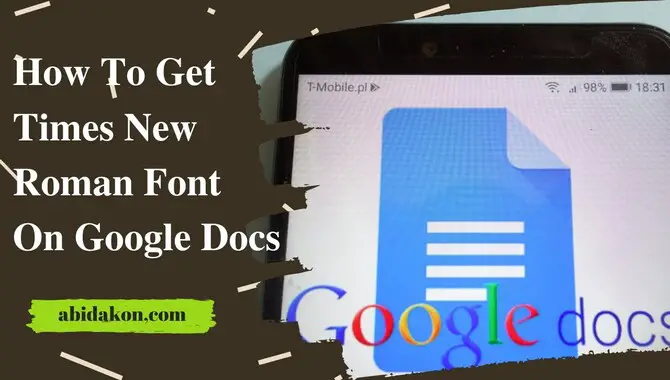
Fonts refer to the typeface used in printed materials, such as books, magazines, and websites. Fonts can come in various styles, including serif, sans-serif, script, and display.
Are you tired of playing it safe with your font choices while creating documents on Google Docs? It’s time to embrace the most significant and boldest fonts available. Here we will explore the most prominent font options in Google Docs, including Arial, Times New Roman, Verdana, Calibri, and Georgia.
We will also discuss how you can change the default font to suit your preferences. Additionally, we have listed the top five biggest font that will make your documents stand out. So, why stick to boring and mundane when you can be bold and beautiful? Let’s dive in.
What Is The Most Biggest Font In Google Docs?
Google Docs’ largest font size is 96pt, perfect for catching attention with headlines or titles. But, using it too much can be overwhelming and hard to read. Experimenting with different fonts recommend to find the right balance for your document.
The biggest font available in Google Docs is 96 points. This font size is approximately 1.33 inches or 3.38 centimeters tall when printed. While this may seem excessively large, it can help create eye-catching titles or headings in documents, presentations, or posters.
However, it’s essential to remember that using a font size that is too large can make your content difficult to read and may appear unprofessional. It’s always best to use larger font sizes sparingly and strategically to ensure your document remains visually appealing and easy to read.
Arial On Google Docs
To ensure readability and aesthetics while using Arial on Google Docs, it’s recommended to use a larger font sparingly and strategically. The largest font available is 96pt, but it’s essential to experiment with different font sizes and styles for the perfect balance.
Clicking “Font size” in the toolbar will help you access the largest font size of Arial on Google Docs. Remember that several different fonts, such as Times New Roman, Calibri, or Georgia, are available, which may also suit your needs.
Times New Roman On Google Docs
Google Docs offers the default serif font Times New Roman that lets you choose from larger font sizes like 96pt using keyboard shortcuts or a toolbar. However, remember that while using big fonts like these sparingly can make your text stand out and emphasize better, it is also essential to balance readability with design.
Verdana On Google Docs
Verdana is among several fonts available on Google Docs that offer a large font size of up to 96pt. It’s essential to remember that using a larger font can impact both readability and aesthetics, so it’s recommended to use this font size sparingly and strategically for emphasis or headings.
To access this larger font size, select the text you want to enlarge and choose the ‘font size’ dropdown menu from the toolbar. Using larger fonts like Verdana can be ideal for various purposes if you balance readability with design.
Calibri On Google Docs
Calibri on Google Docs provides the largest font size of 96 pt. This can be accessed by selecting “96” from the font size box or typing “96pt.” However, it’s crucial to maintain a balance between readability and design, as larger font sizes can make documents challenging to read and appear unprofessional. Using big fonts for emphasis or specific purposes like headings or titles recommend. To improve readability, consider adjusting line spacing or using serif fonts such as Georgia or Times New Roman.
Georgia On Google Docs
You can access the largest font size in Google Docs by selecting the font size dropdown menu at the bottom of the list. While using large fonts sparingly is a good idea, you can emphasize your text with bold or italic formatting. Remember that readability is critical, so try different fonts, spacing, and line spacing to get it right. Playfair Display and Old Standard TT are great serif fonts that work well for larger sizes. You can change the default font and font size box on Google Docs with easy steps.
How To Change The Default Font On Google Docs?
Changing the default font on Google Docs is a simple process that can make a big difference in the appearance of your documents. To do so, you’ll need to open a new or existing document. Then, go to the toolbar and select “Format” followed by “Paragraph styles.” From there, click “Normal text” and select “Update ‘Normal text’ to match.”
This will create a pop-up window where you can choose your desired font, size, and other formatting options. Once you’ve selected it, click “Apply,” and your default font will update for all future documents. Remember that this will only affect new documents; any existing documents must be manually updated if you want them to reflect the new default font.
Top 4 Most Beautiful Fonts In Google Docs
Choosing the right font for your Google Docs document is crucial for creating a professional and polished look. While many different font styles exist, the following five fonts are the most beautiful options in Google Docs. If you’re looking for a classic serif font that adds elegance and sophistication, consider using Playfair Display or Old Standard TT. For a more modern sans-serif option, try Montserrat or Open Sans.
And if you want a distinctive slab serif font that makes a statement in headers or titles, Roboto Slab is an excellent choice. Selecting the right font style and adjusting the font size and line spacing appropriately allows you to create a visually appealing document that effectively communicates your message.
1. Arial
Arial is a popular sans-serif font commonly used for print and digital media. Designed by Robin Nicholas and Patricia Saunders in 1982, this versatile font comes in various weights, such as bold and italic making it flexible to use. Its wide usage across various domains, including web designing, graphic designing, and document writing, has become one of the most common fonts available today.
2. Times New Roman
Regarding fonts, Times New Roman is undoubtedly a classic option widely used. This versatile serif font is perfect for formal and informal documents, and its readability makes it an excellent choice for academic papers and professional documents.
Whether working on a research paper or drafting an official document, Times New Roman can help you achieve the desired impact with your writing. Secondary Keyterms Used: serif font, readability, research paper, official document, classic option, widely used.
3. Calibri
Calibri is a well-known modern sans-serif font that provides a clean and professional look to your documents without compromising readability. This font is perfect for both personal and business documents, with its good legibility, making it easy to read even at smaller sizes.
One great feature of Calibri is its versatility, as it comes in various weights, allowing flexibility in your design choices. You could also try larger font sizes or adding spacing between your lines to get that significant, bold effect without making it too overwhelming for your readers.
4. Georgia
Georgia’s design was intended for digital screens. It has a larger X-height and more open spacing between letters than other fonts of the same size. This allows for better readability even at smaller sizes. Georgia’s elegant curves and clean lines give your work a timeless vibe suitable for professional and creative purposes. Whether you’re writing body text or headings on your website or blog post. Georgia is an excellent serif font choice due to its versatility and unique design.
Fonts refer to the style, size, and weight of a typeface used in printing or on a digital display. They play an essential role in visual communication by conveying a message’s tone, mood, and personality. Embracing the most prominent font in Google Docs can add an element of boldness and sophistication to your written work.
Though different fonts affect readers differently, choosing the right font is essential for effective communication. You can change your default font in Google Docs to suit your style and preferences. In addition to the biggest font available, there are some of the most beautiful fonts you can use for various purposes. Whether writing a formal document or creating a playful design, choosing the right font will make all the difference.
1.What Is The Largest Size Font?
Ans: The largest font size depends on the font and software used, with some going up to 512 points. However, readability and legibility should also be considered. Experimentation is vital to finding the optimal size for your design or project.
2.What Is The Most Significant 12-Size Font?
Ans: The largest 12-size font varies based on the chosen style, but fonts like Arial, Impact, and Helvetica offer bigger sizes. For better readability, use bold or italic styles. However, remember that using a considerable font can affect the document’s design, so use it sparingly.
3.Is Times New Roman Bigger Than Arial?
Ans: The font size of Times New Roman and Arial is generally considered similar. However, the size can vary based on screen resolution, zoom settings, font type, style, and weight. Choosing a readable font that meets the text’s purpose is vital.
4.Is 72 The Most Prominent Font In Word?
Ans: Contrary to popular belief, 72 is not the most prominent font in Word. The software provides a range of fonts up to 1638 points, but the limit may vary depending on the font. However, it’s important to note that huge fonts can affect readability and may not be appropriate for all contexts.
5.What Is The Biggest Font On Google Docs?
Ans: Google Docs offers a “Huge” font size of 96pt, ideal for headers and titles. While “Very Large” at 48pt and “Large” at 36pt are also available, it’s essential to use them strategically for readability. Overusing large fonts can be overwhelming and detract from the overall design.